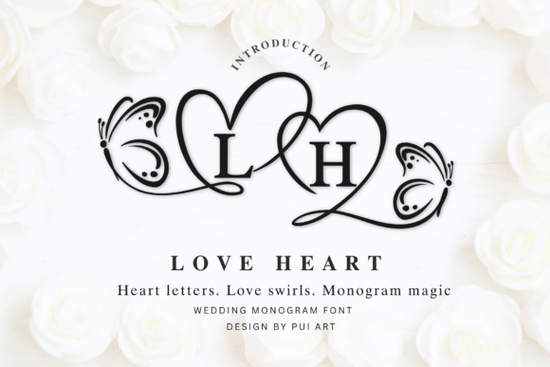
If you're looking for a romantic script font that works beautifully for monograms, the Love Heart Monogram Font is worth a close look. Designed with flowing heart-shaped curves and artistic swirl tails, this decorative typeface blends calligraphy style with a modern romantic feel. It's built specifically for monogram work think wedding invitations, personalized stationery, logo designs, and Valentine-themed projects but its elegant letterforms go well beyond those uses.
What Makes the Love Heart Monogram Font Different from Other Script Fonts?
Plenty of script fonts aim for a romantic look, but many end up feeling either too stiff or too over-the-top. The Love Heart Monogram Font finds a middle ground. Its heart-shaped curves are noticeable without being cartoonish, and the swirl tails add movement without cluttering the design. Each letter carries a sense of elegance that feels natural rather than forced.
Compared to more traditional decorative options like classic wedding monogram fonts, this one leans more toward a soft, love-inspired aesthetic. It's less about formal serif structure and more about flow and emotion.
Where Does This Font Work Best?
Based on the font's design and style, here are some of the most common and practical uses:
- Wedding invitations and save-the-dates The heart details and elegant curves are a natural fit for bridal stationery.
- Monogram logos Great for small businesses in fashion, beauty, jewelry, or personal styling that want a romantic brand identity.
- Personalized gifts Mugs, tote bags, cutting boards, and framed prints with initials look polished in this font.
- Valentine's Day designs Cards, social media graphics, and printable wall art all benefit from its love-themed style.
- Craft projects If you use Cricut or Silhouette machines, this font cuts cleanly for vinyl and paper projects.
- Print-on-demand products Sellers on Etsy, Redbubble, or Amazon Merch can use it for romantic-themed merchandise.
How Do You Pair This Font with Other Typefaces?
A decorative monogram font like this one works best when paired with a clean, simple body font. Here are a few pairing tips:
- Use a minimal sans-serif (like Montserrat or Lato) for body text to keep things readable.
- Keep the Love Heart Monogram for headlines, initials, or featured text only don't set entire paragraphs in it.
- Maintain consistent spacing around the monogram so the swirl tails have room to breathe.
Tips for Getting Clean Results with Decorative Script Fonts
Decorative fonts can be tricky to work with if you're not careful. Here are some practical tips:
- Size matters. Use this font at larger sizes (24pt and above) so the heart details and swirls render clearly.
- Check readability. Zoom out and squint if the letters blur together, increase the tracking or letter spacing.
- Test before printing. Always do a small test print to make sure thin strokes and decorative elements hold up on your chosen material.
- Use vector formats. When possible, convert text to outlines in Illustrator or Affinity Designer for clean scaling.
- Layer wisely. If you're placing the monogram over a photo or pattern, add a subtle shadow or background shape to keep it readable.